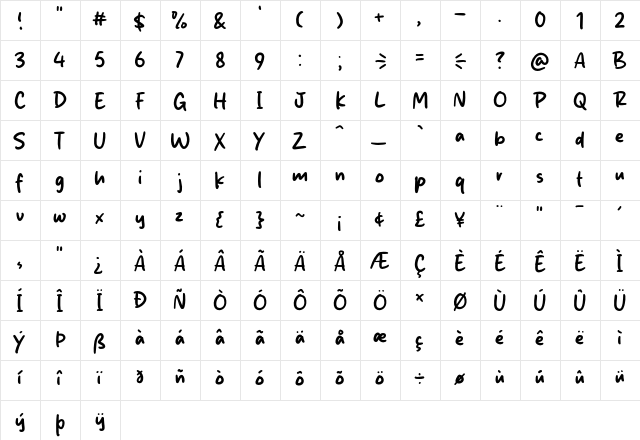
Complete Cheese Durian Regular glyph index. Displaying only characters natively supported by Cheese Durian Regular font.
Cheese Durian is a composed and adaptable typeface that performs quietly and consistently across a wide range of design contexts.